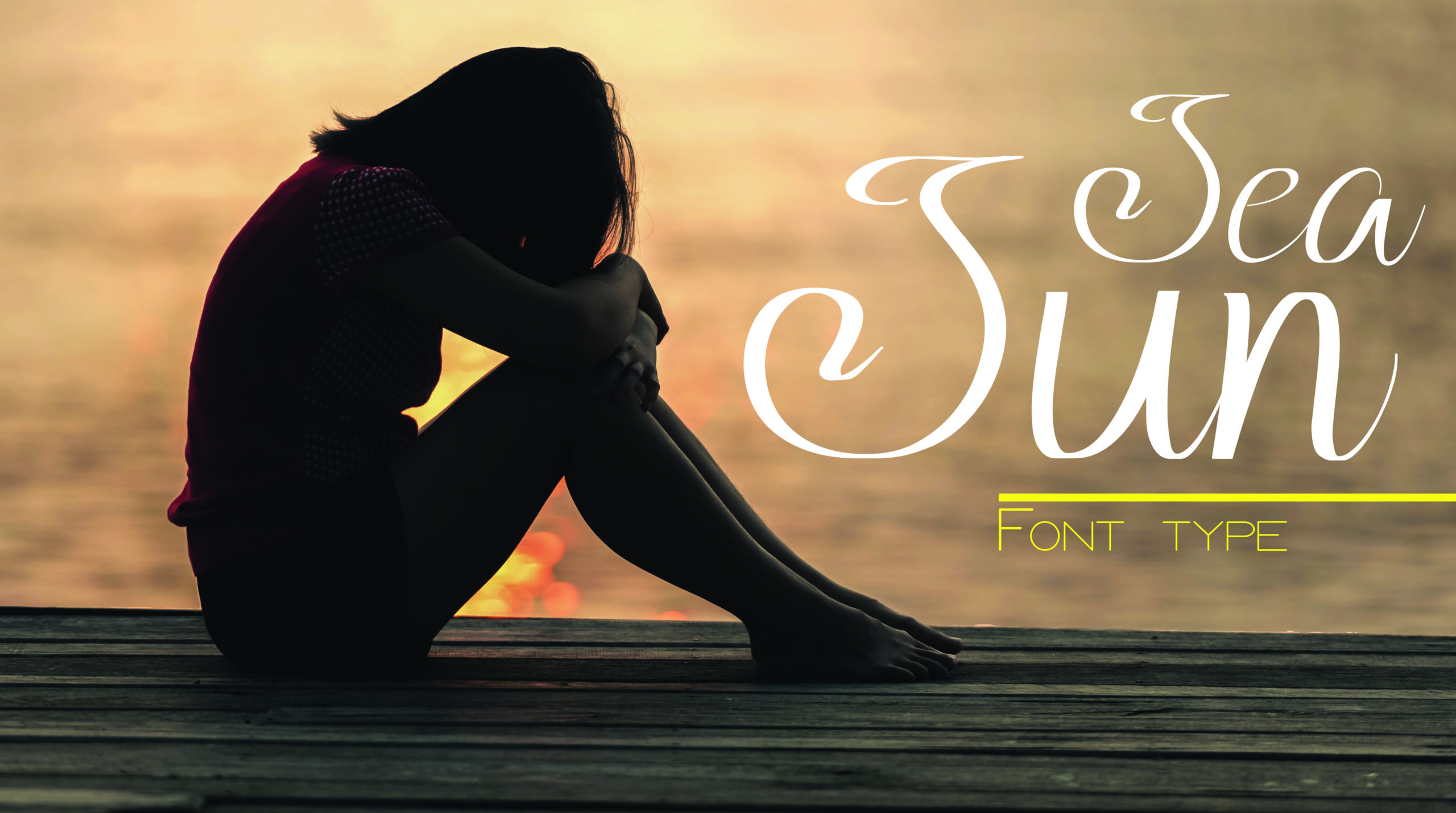
Flower Grave Font
About Flower Grave Font
Flower grave is a simple font created by hand that looks great in print and other applications. This friendly script font is a great way to add some flourish and romance to all your creative projects.